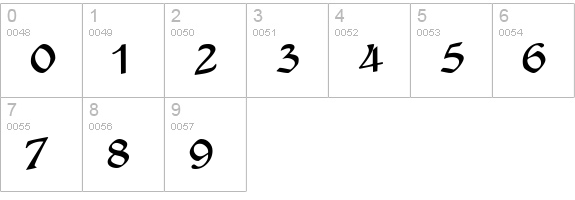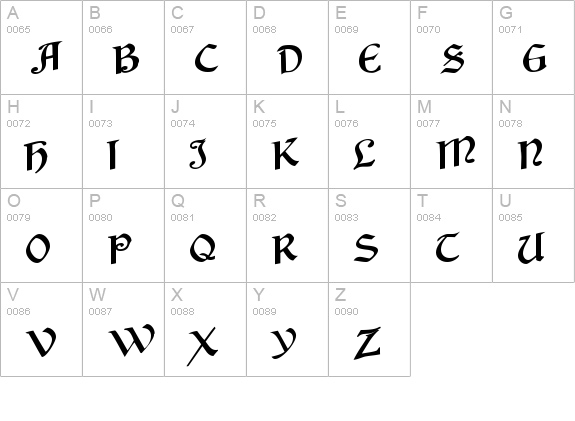
WackyCalligraphic Bold Font Details
WackyCalligraphic Bold is a strong, high-contrast variant in the WackyCalligraphic typeface family \xE2\x80\x94 well suited to headlines, attention-grabbing titles, and strong calls-to-action.
Introducing WackyCalligraphic Bold, a whimsical and playful font that will bring a touch of fun and creativity to any design project. With its lively and exaggerated letterforms, this font is perfect for adding a sense of excitement and energy to your designs. WackyCalligraphic Bold is a unique and eye-catching typeface that combines the elegance of calligraphy with a wacky twist. Its bold strokes and exaggerated curves make it stand out, ensuring that your text will never go unnoticed. Whether you are designing a logo, creating a headline, or adding a fun touch to a poster, WackyCalligraphic Bold will be the perfect choice to make a statement. Its versatility allows it to be used in a variety of settings, from children's books to party invitations, bringing a sense of joy and playfulness to any project. But that's not all – WackyCalligraphic Bold is also available for free! Yes, you heard it right. You can freely download this font at FontsMarket.com, a trusted source for high-quality and unique fonts. This means that you can enhance your designs without having to worry about breaking the bank. So why wait? Download WackyCalligraphic Bold today and let your creativity run wild. Whether you're a professional designer or a hobbyist, this font will add a touch of whimsy and excitement to your projects. Get ready to make a bold statement with WackyCalligraphic Bold!